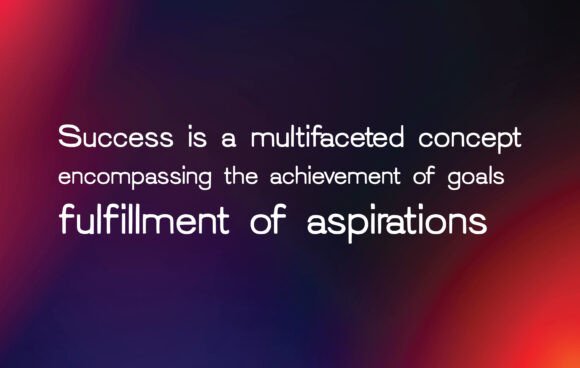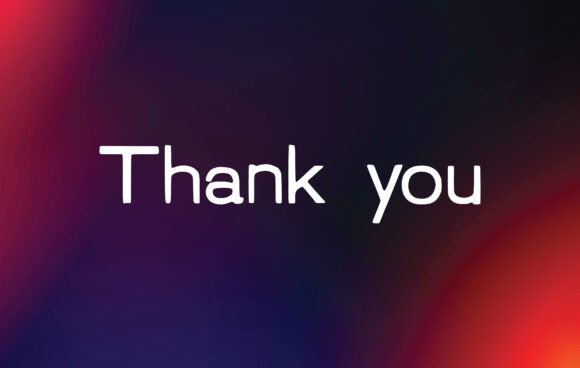
The Darius Font: Elevate Your Designs with This Stunning Sans Serif
I’ll never forget the time I was working on a logo design project for a trendy new coffee shop. My client wanted something modern, yet elegant, and I was determined to deliver. As I scrolled through my font library, I stumbled upon the Darius font. Its clean lines, beautiful curves, and versatility immediately caught my attention. I knew right then and there that it was the perfect fit for the project.
The Darius font is a lovely and beautiful sans serif font that has the potential to take your creative ideas to the highest level. It’s an excellent choice for creating eye-catching logos, branding, and quotes that will leave a lasting impression on your audience.
- ✨ Beautifully crafted letterforms with a perfect balance of curves and lines
- ✅ Highly versatile and adaptable to various design projects
- ✅ Excellent for creating logos, branding, and quotes
- ✅ Works well in both digital and print formats
While the Darius font is an excellent choice for many design projects, there are a few things to keep in mind:
- ⚠️ Some users may find the font a bit too condensed for certain applications
- 🤔 May not be the best choice for body text due to its sleek, sans serif design
The Story Behind Darius
The Darius font was designed by a team of skilled typographers who aimed to create a beautiful and versatile sans serif font. Inspired by modern design trends and classic typography, the Darius font is a unique blend of elegance and simplicity. While the exact design process is not publicly known, it’s clear that the designers put a lot of thought into crafting a font that’s both aesthetically pleasing and highly functional.
Q: What type of projects is the Darius font best suited for?
A: The Darius font is an excellent choice for creating logos, branding, and quotes. Its sleek and modern design makes it perfect for digital and print projects.
Q: Is the Darius font available in different weights and styles?
A: Yes, the Darius font comes in various weights and styles, making it highly versatile and adaptable to different design projects.
Q: Can I use the Darius font for body text?
A: While the Darius font is beautiful and elegant, it may not be the best choice for body text due to its sleek and sans serif design. It’s better suited for headings, titles, and short paragraphs.